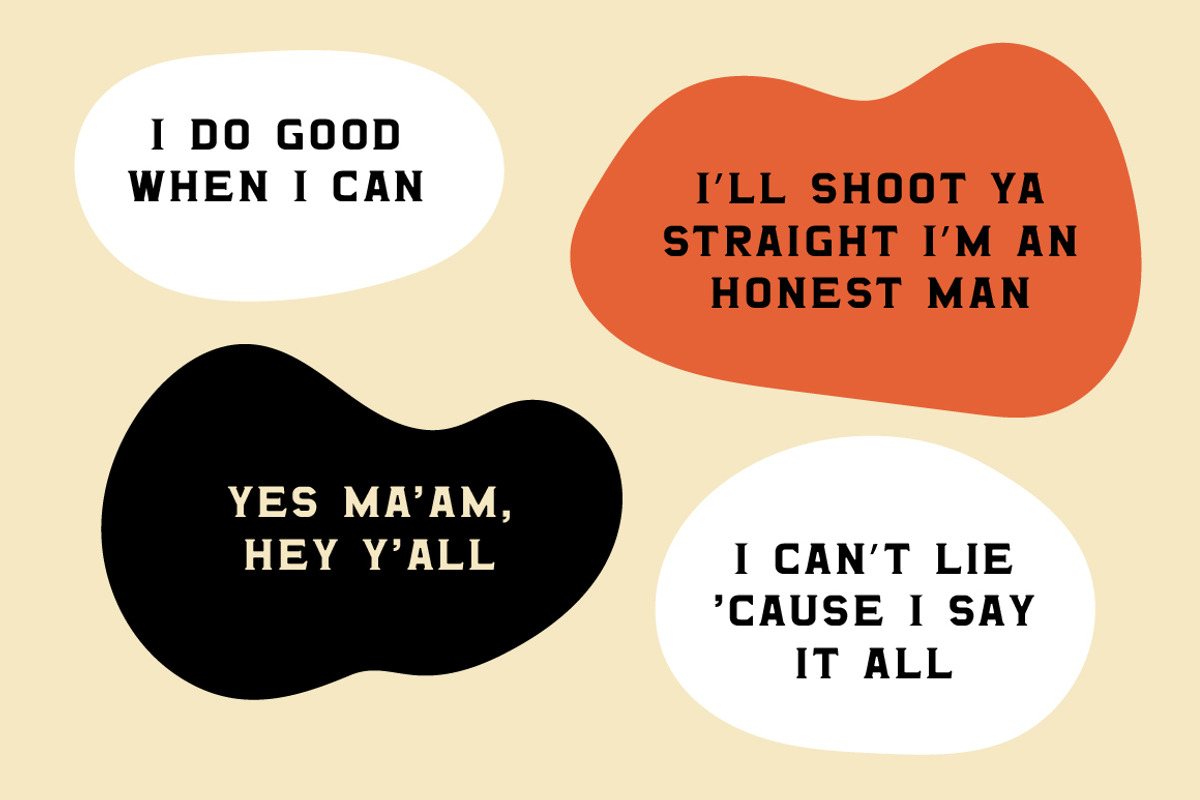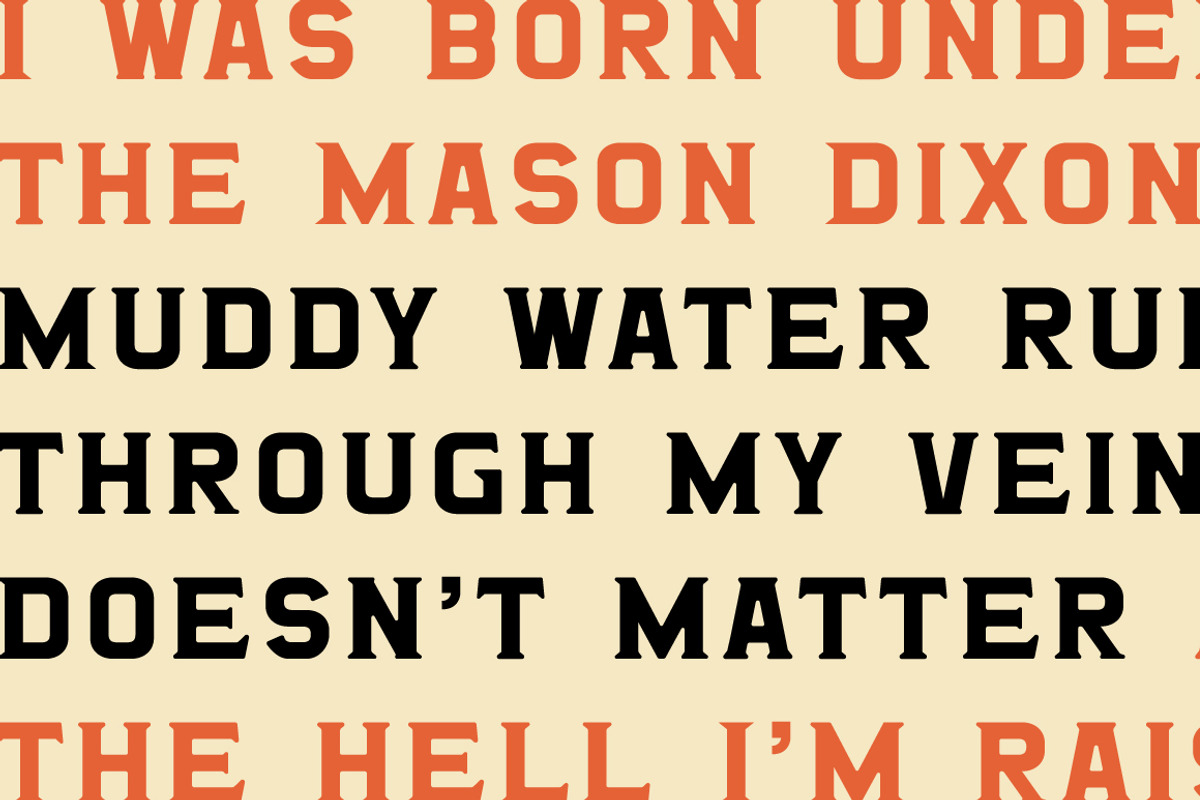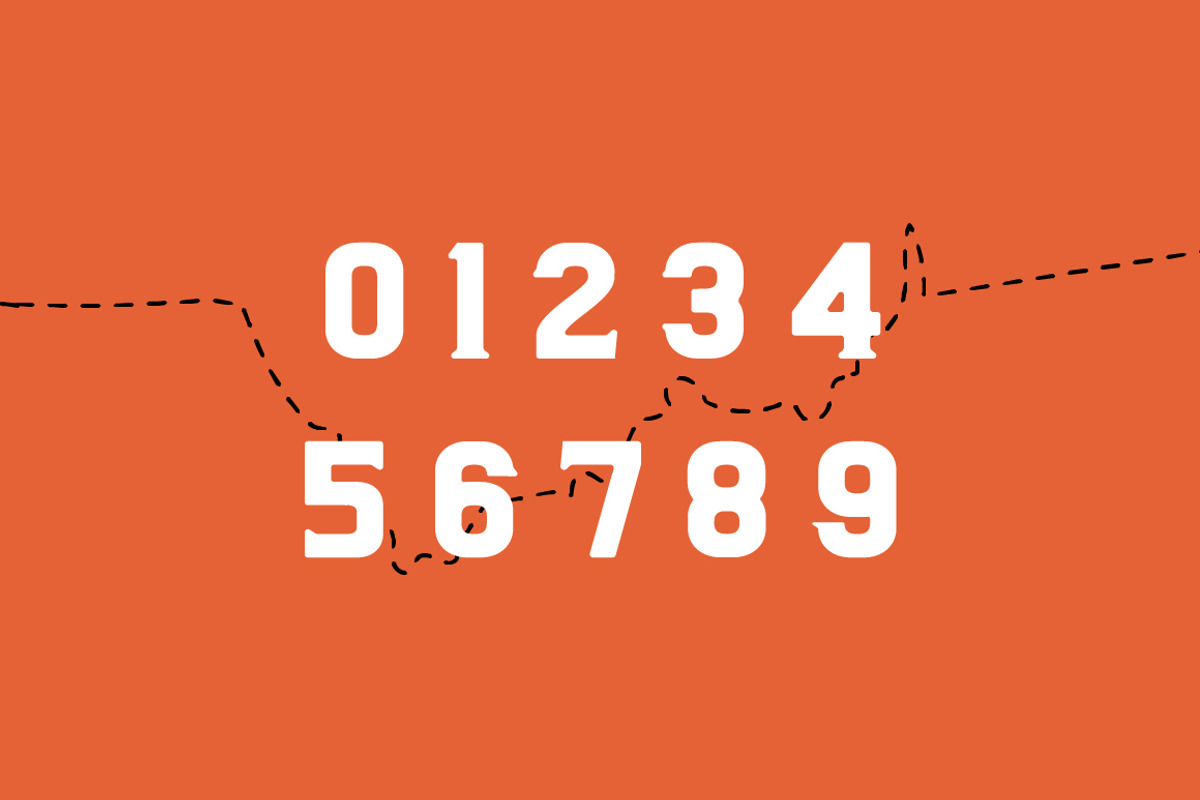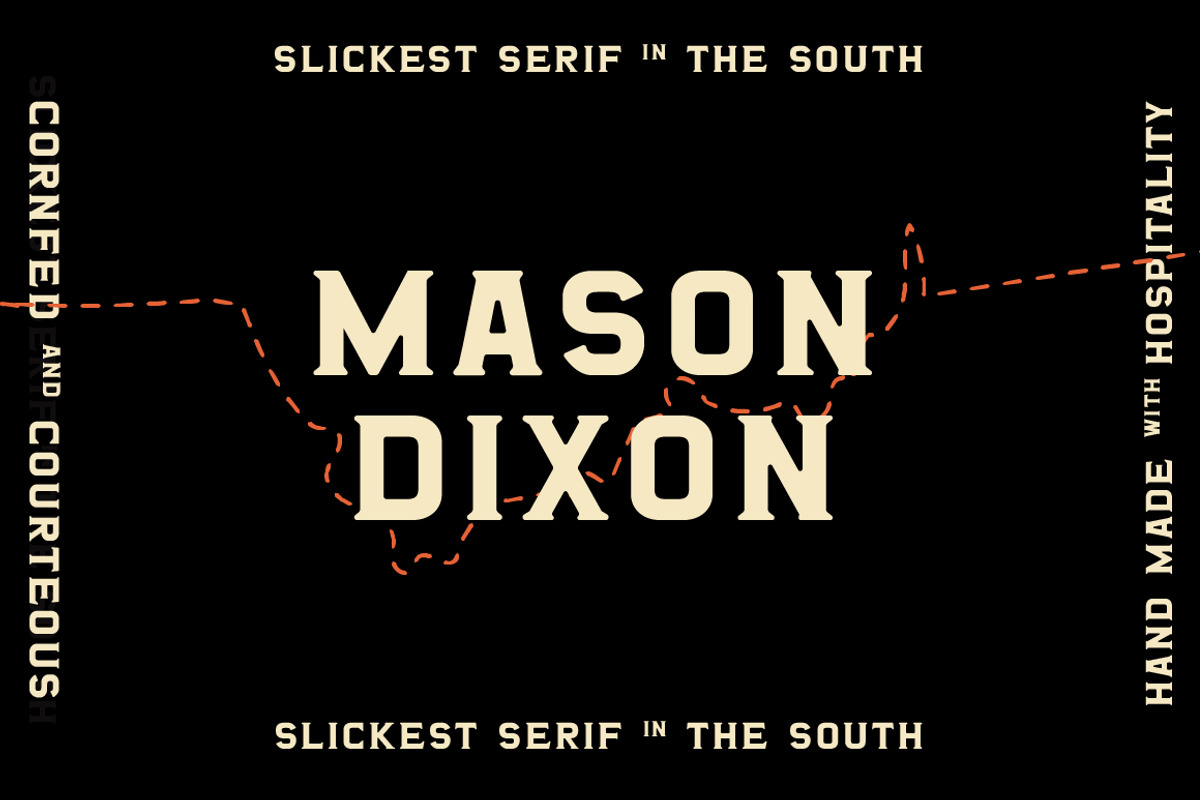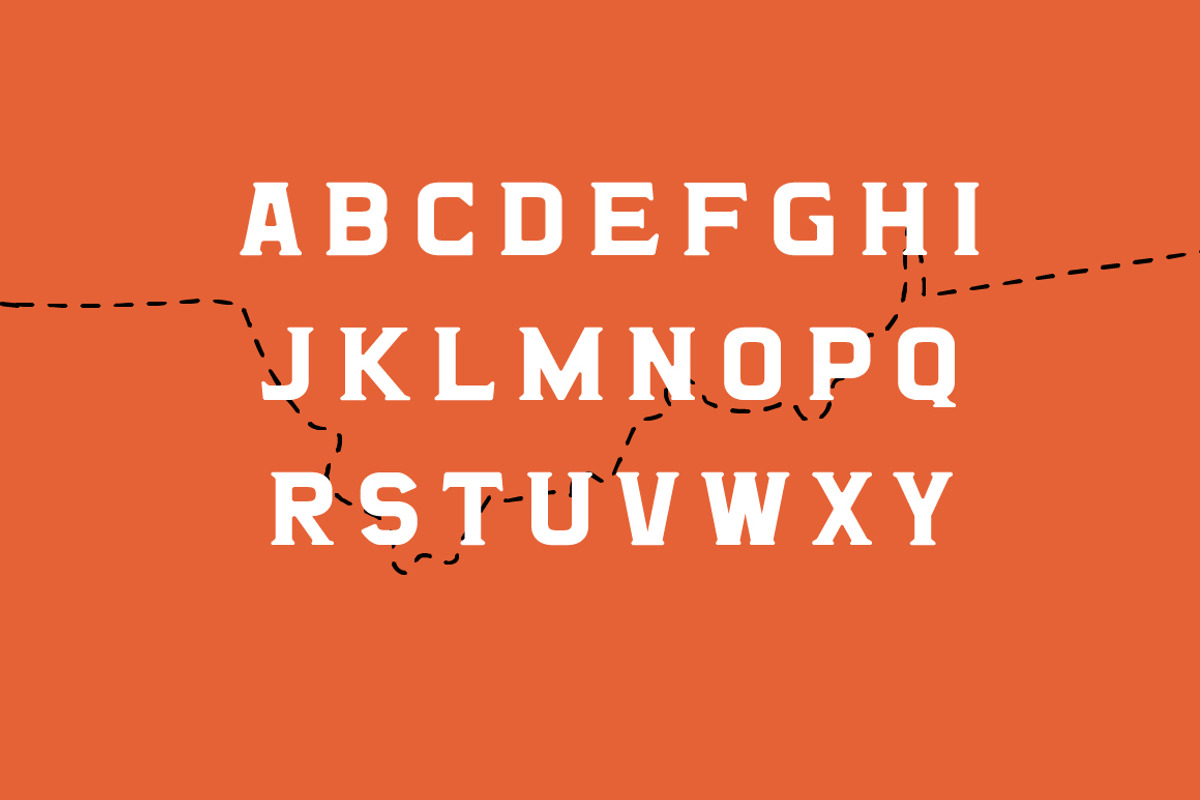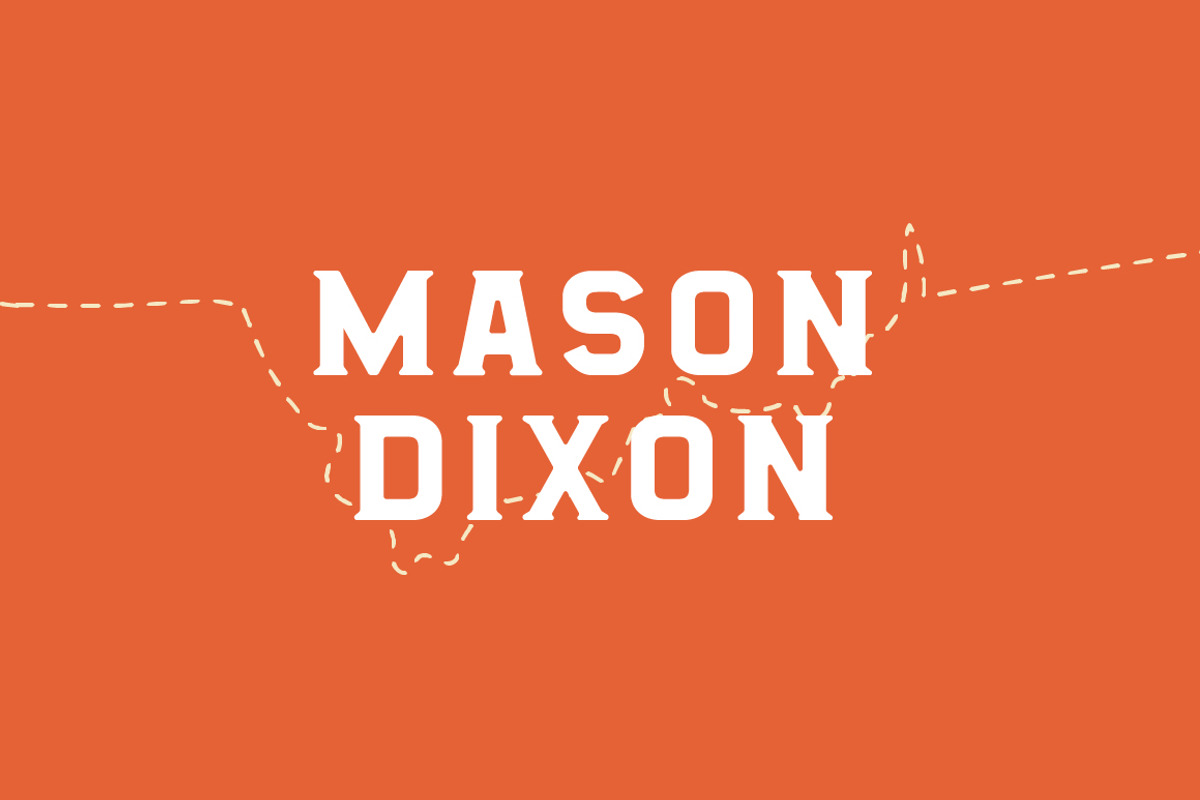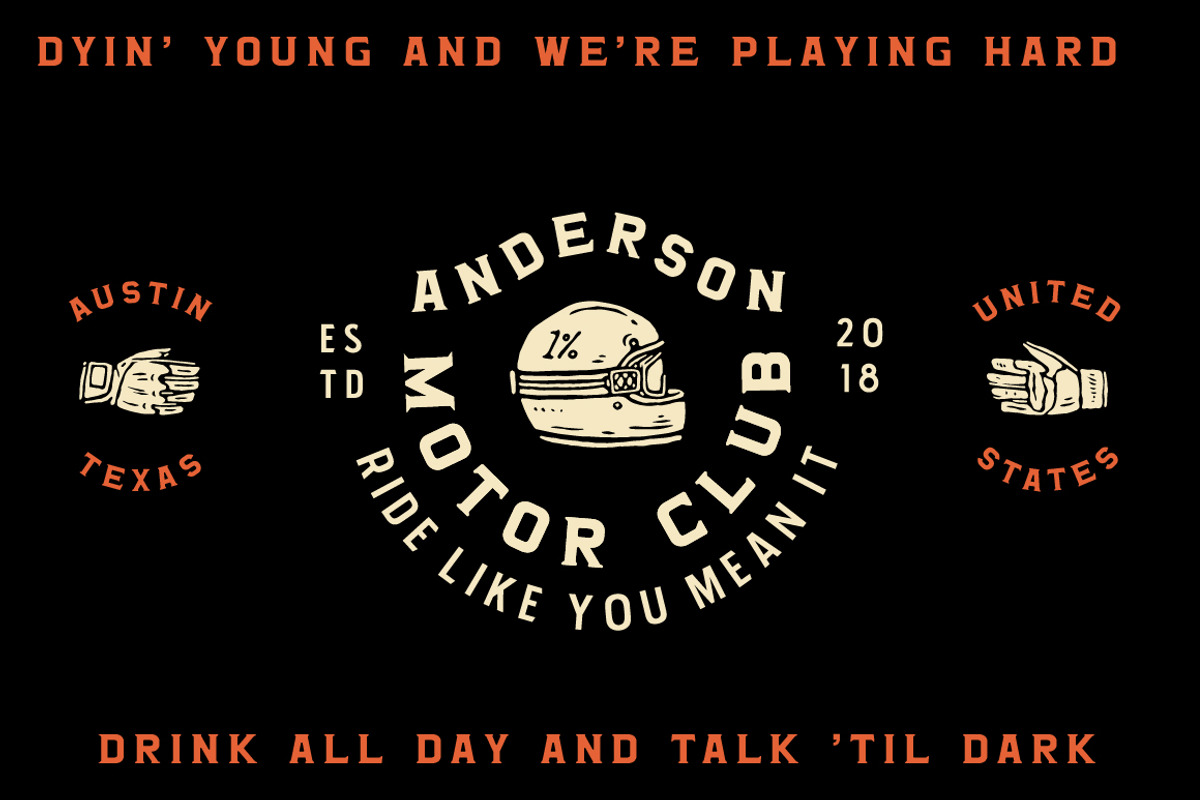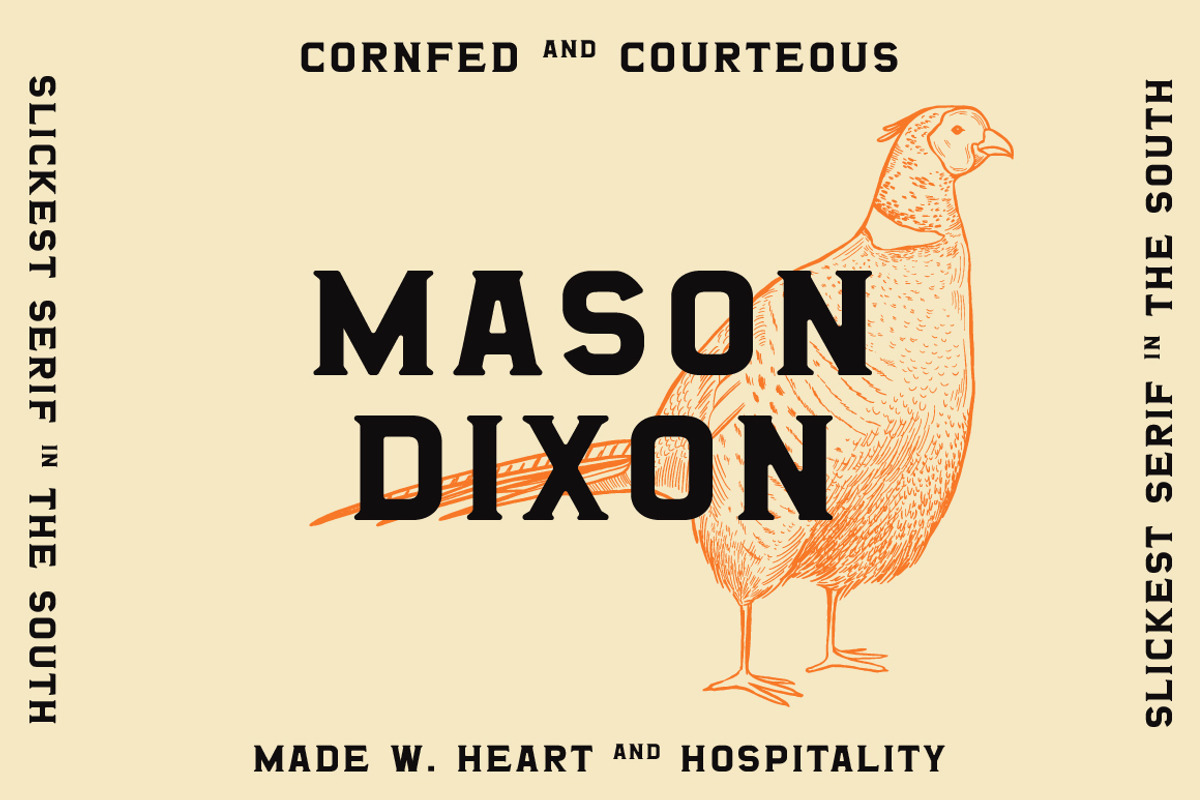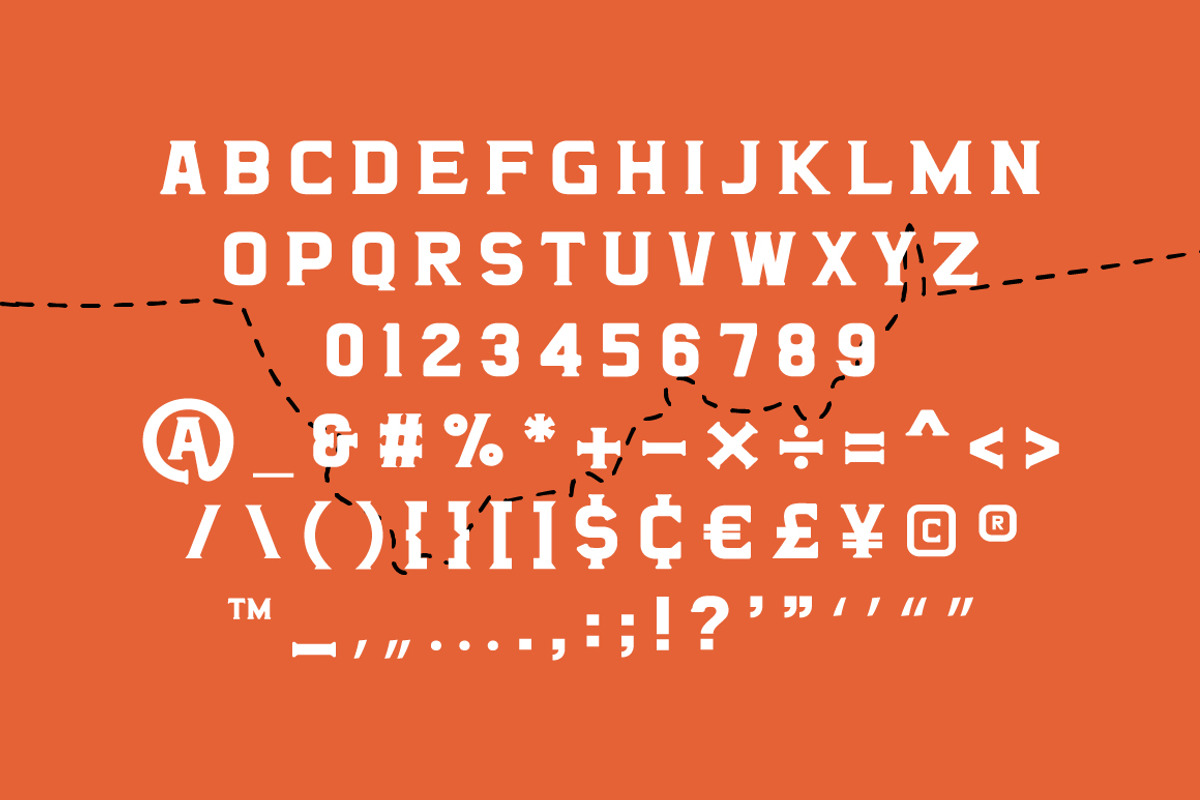
Mason Dixon - Southern Display Font
Mason Dixon is the slickest serif is the south. A homage to southern comfort and hospitality (minus all the racism and backwards beliefs). Snag your copy of the Mason Dixon today and get creative.
*THIS ENTIRE FONT IS CAPITALIZED